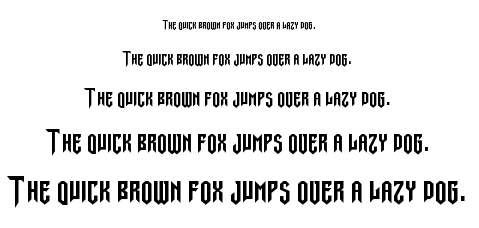
Based on the logo of the television show. This is a maintenance release.
Revised version of the font. Drops the border, fixes most of the errors and alignment issues.